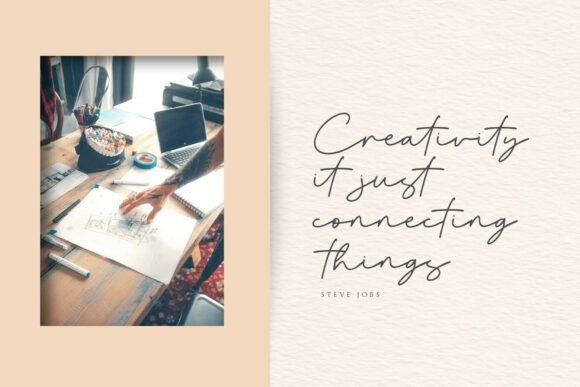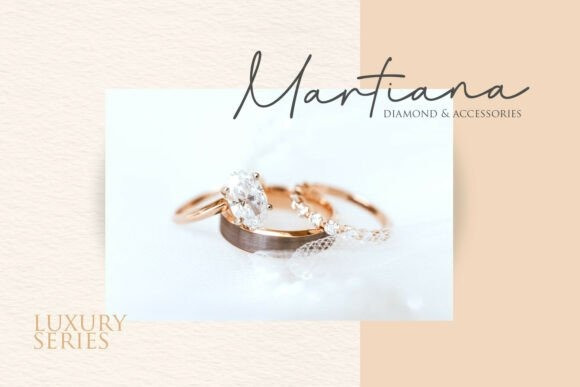
Setubal Script Font
Setubal Script Font is a clean, stylish, modern, and elegant script handwriting font perfect for posters, logos, magazines, book covers, banners, and many more! Get this amazing font, and use it to create lovely designs. It can easily be matched to an incredibly large set of projects, so add it to your creative ideas and notice how it makes them stand out!